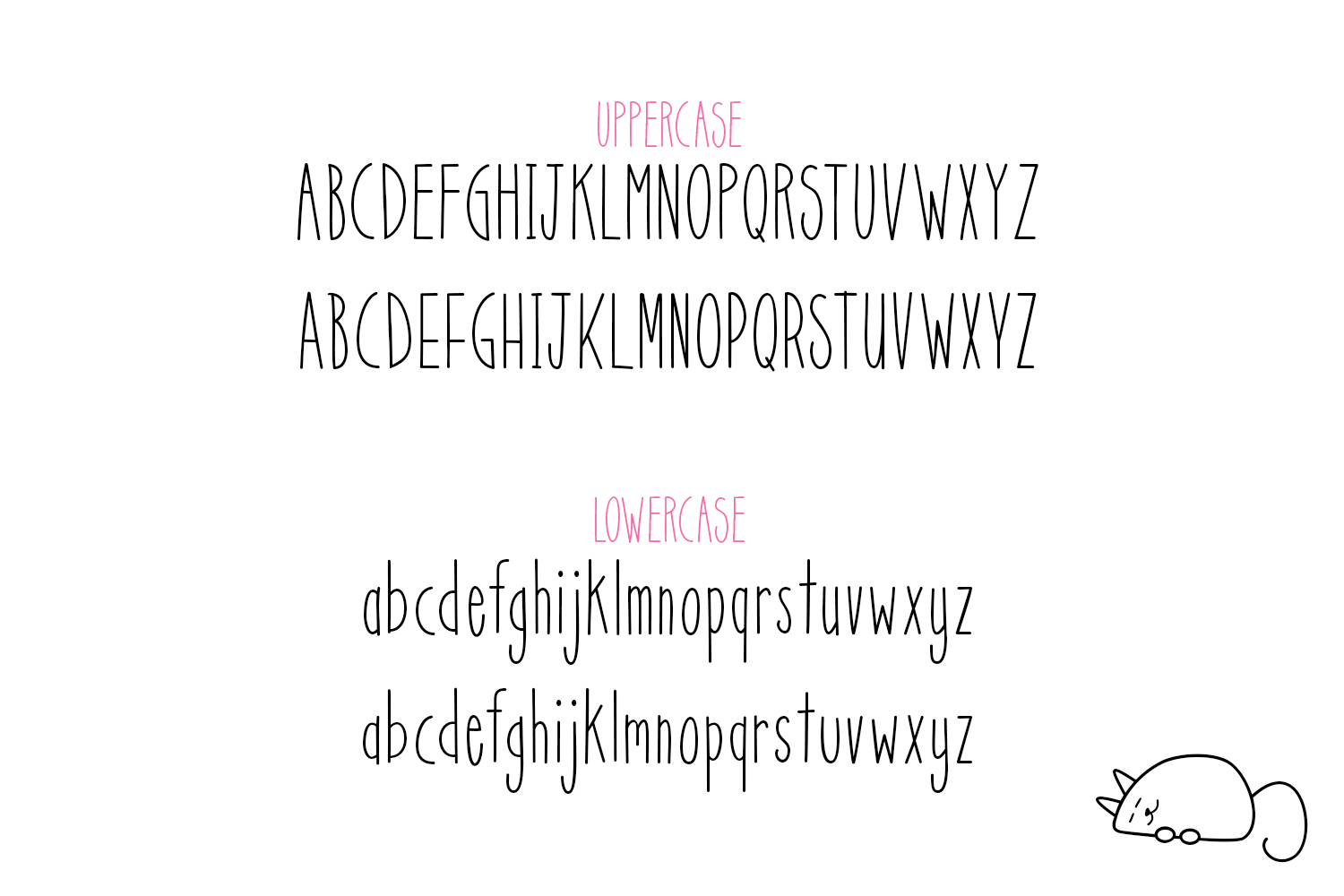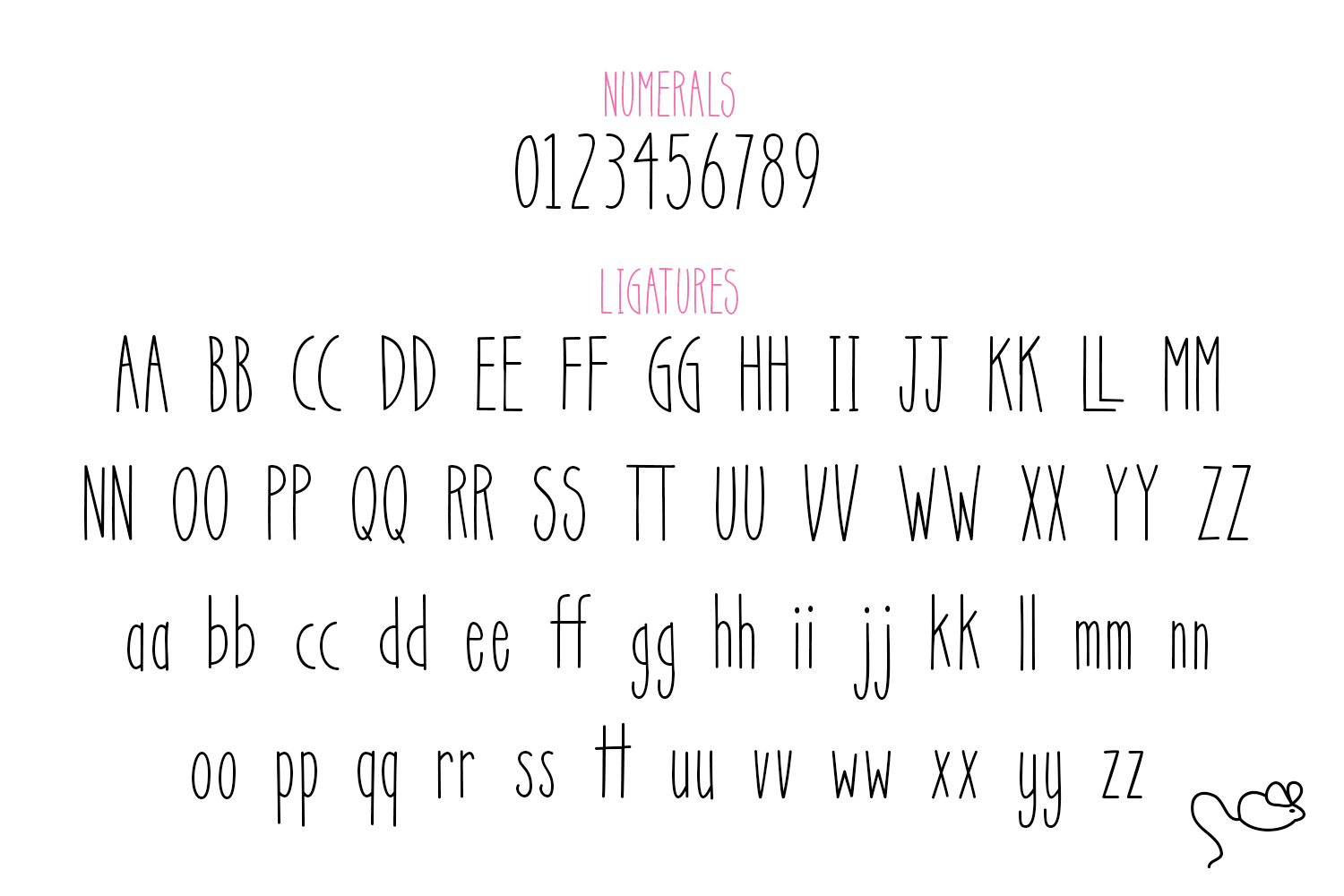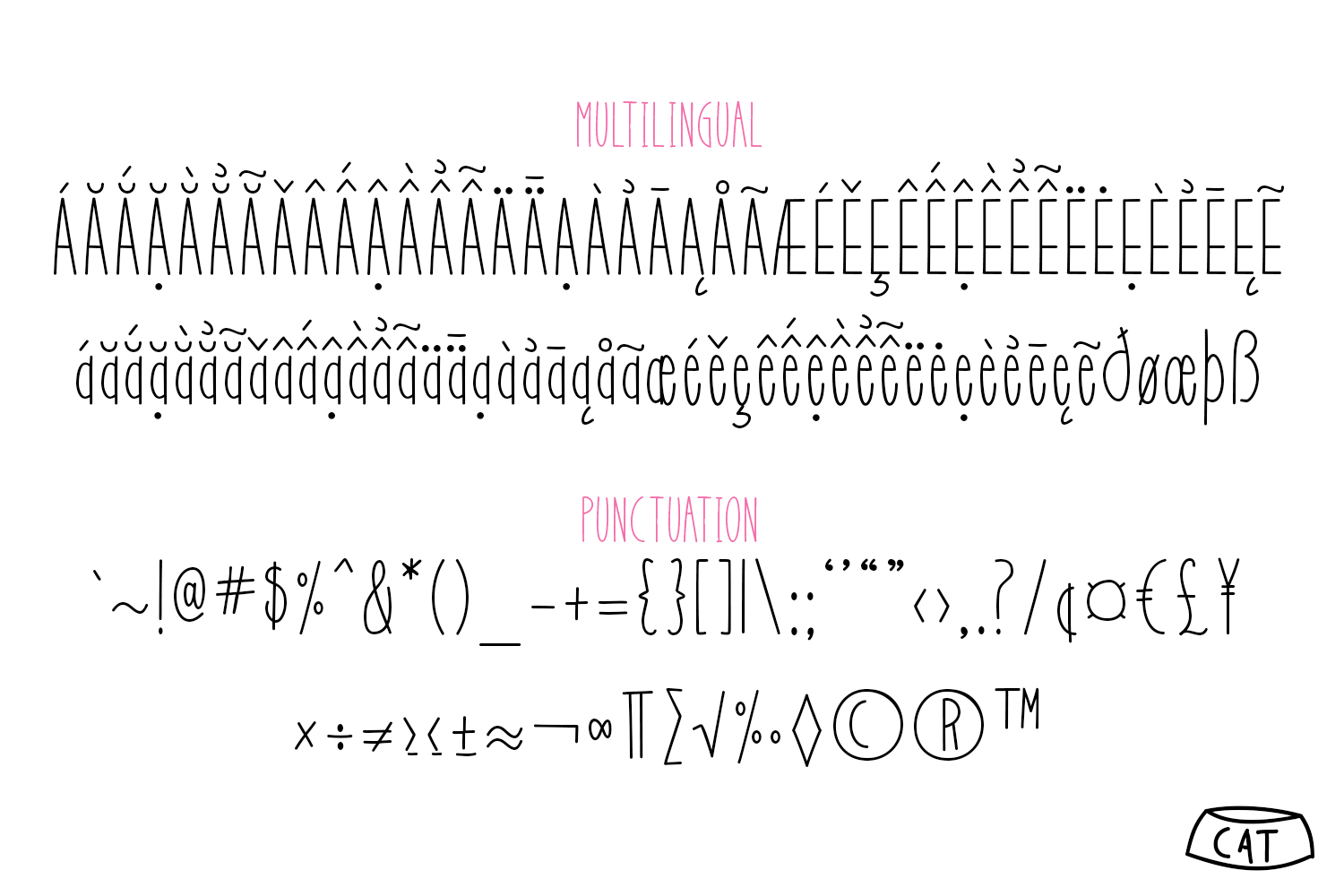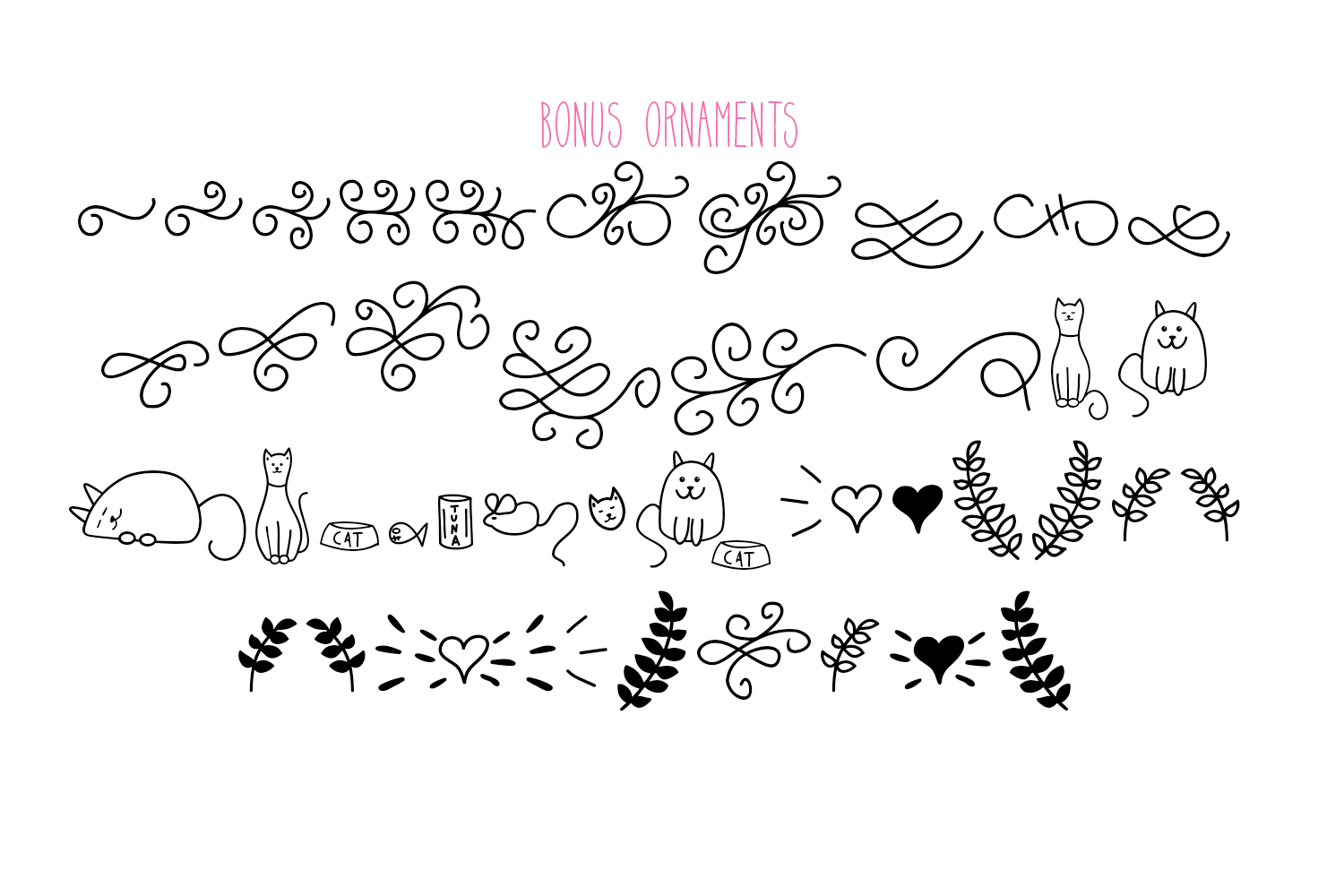
Introduction to Scat Cat Font
Scat Cat is a tall and skinny decorative font full of cattiness.
Scat Cat is a tall and skinny decorative font full of cattiness!
Key Features of Scat Cat Font